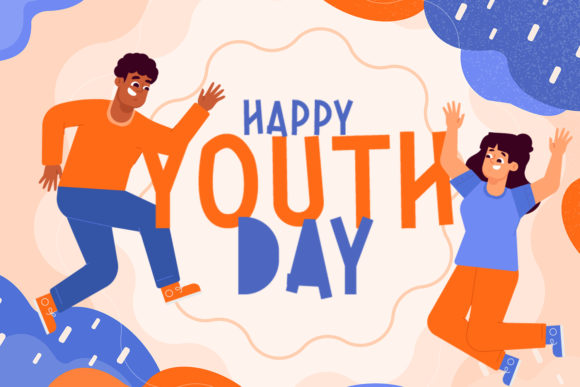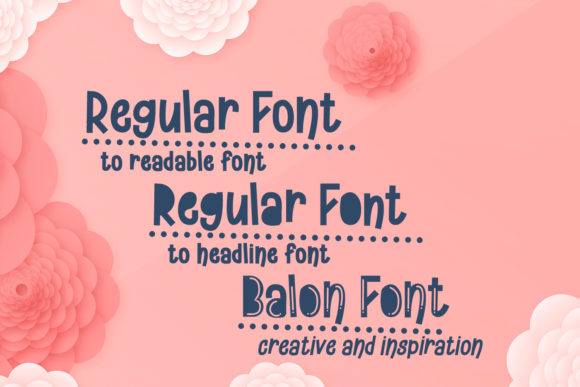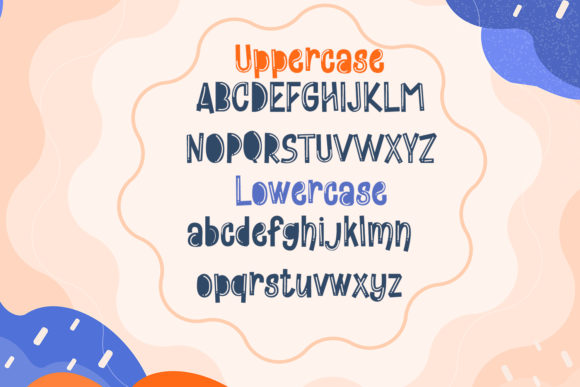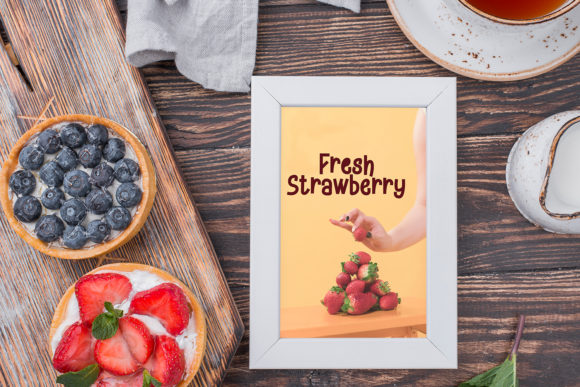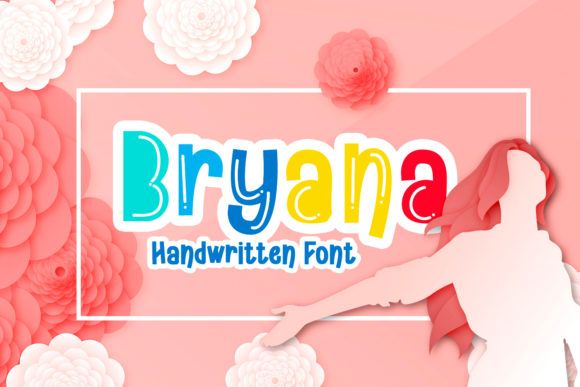
The Designer’s Delight: Getting to Know Bryana Font
I’ll never forget the time I was working on a branding project for a trendy new cafe. My client wanted a font that was bold, colorful, and friendly – something that would make their logo stand out on a crowded street. I spent hours scouring the internet for the perfect match, but nothing seemed quite right. That was until I stumbled upon Bryana Font. ✨
This stunning display font has been a game-changer for my design projects, and I’m excited to share its awesomeness with you. In this article, we’ll dive into the world of Bryana Font, exploring its features, uses, and some helpful tips for getting the most out of this versatile font.
An Honest Review of Bryana Font
- ✅ Bold and colorful: Bryana Font makes a statement with its vibrant colors and bold design.
- ✨ Friendliness: This font has a welcoming feel that’s perfect for brands that want to appear approachable and fun.
- 💡 Versatility: Whether you’re designing a logo, poster, or social media graphic, Bryana Font adapts effortlessly to different contexts.
While Bryana Font is an amazing addition to any design project, there are a few things to keep in mind: 🤔
- ⚠️ Legibility at small sizes: As with many display fonts, Bryana can become difficult to read at very small sizes. Use it for headlines or titles, and consider a complementary font for body text.
- ⚠️ Limited serif options: Bryana is a sans-serif font, which might not be the best fit for projects that require a more traditional or formal look.
A Practical Guide to Using Bryana Font
- Experiment with OpenType features like ligatures and stylistic alternates to add visual interest to your design.
The Story Behind Bryana Font
Rumors say that Bryana Font was inspired by the colorful streets of a vibrant city, where art and design come alive. Its creator, a talented type designer, wanted to craft a font that would capture the essence of creativity and self-expression. And capture it, they did! 💥
Q: What type of projects is Bryana Font best suited for?
Bryana Font is perfect for bold, eye-catching designs like logos, posters, social media graphics, and headlines.
Q: Is Bryana Font available in different weights or styles?
Bryana Font comes in a range of styles and weights, making it easy to find the perfect match for your design.
Q: Can I use Bryana Font for body text?
While Bryana Font is stunning, it’s best used for headlines or titles. Consider pairing it with a complementary font for body text.